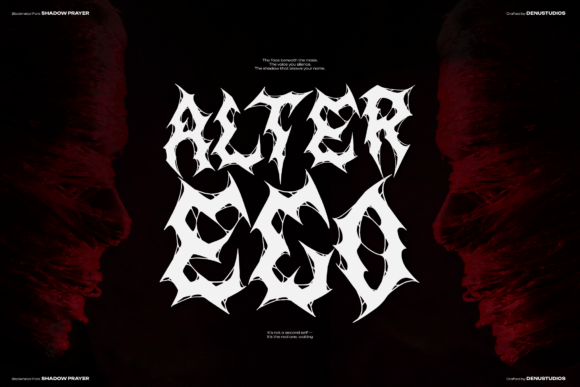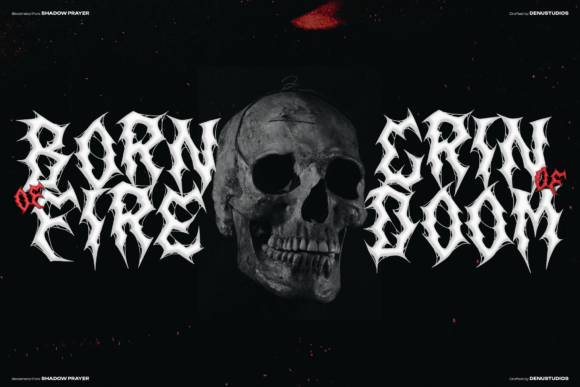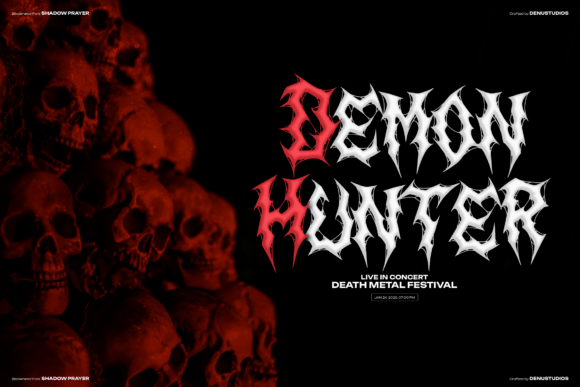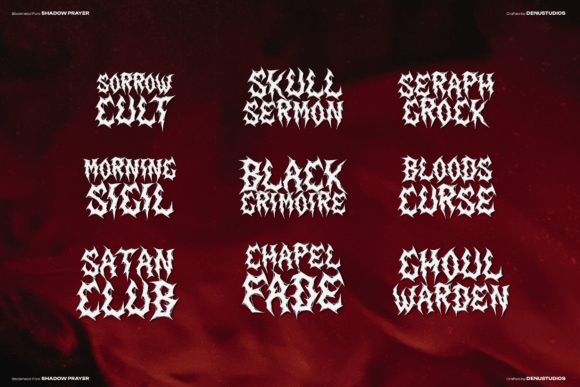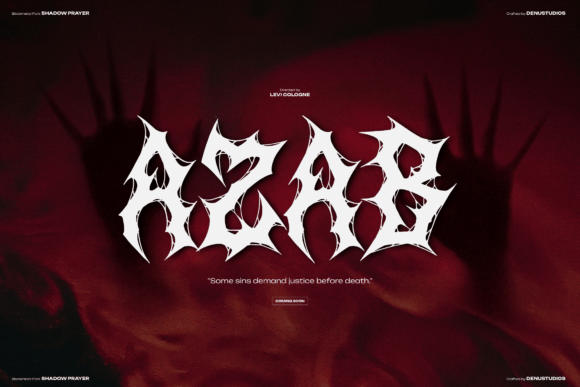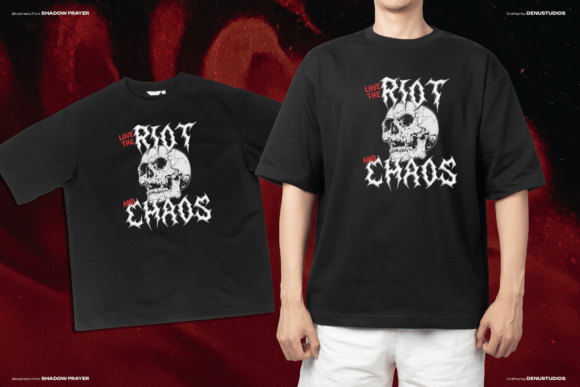
Introduction to Shadow Prayer Font
Shadow Prayer | Black Metal Font is a fierce and atmospheric typeface from Denustudios , designed to embody the raw intensity of black metal aesthetics.
With razor-sharp curves, jagged outlines, and a haunting visual edge, itโ€™s a font that commands attention and adds brutal character to any creative project Ideal for high-impact use, Shadow Prayer is perfect for logos , branding , merchandise , homeware designs , product packaging , mugs , quotes , posters , shopping bags , t-shirts , book covers , name cards , invitation and greeting cards , labels , photography watermarks , event promotions , and any project that craves a dark, gothic metal vibe.
Key Features of Shadow Prayer Font